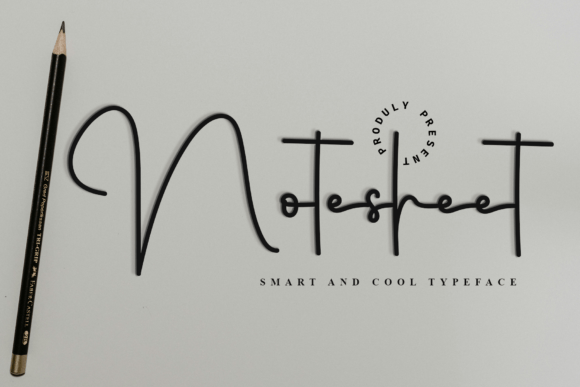
Introducing Notesheet Font: The Ultimate Holiday Typeface
The holiday season is upon us, and what better way to get into the spirit than with a festive and merry typeface? Look no further than Notesheet Font, a decorative and whimsical font that captures the essence of the holiday season. With its enchanting elements and nostalgic flair, Notesheet Font is perfect for adding a touch of magic to your designs.
What Makes Notesheet Font Special?
Notesheet Font is a unique and captivating typeface that boasts a range of decorative elements and whimsical features. Its festive and merry design makes it perfect for holiday-themed projects, greeting cards, gift tags, and more. With Notesheet Font, you can add a touch of enchantment to your words and make your designs shine.
- Decorative Elements: Notesheet Font features a range of decorative elements, including intricate swirls, holly leaves, and snowflakes, that add a touch of festive flair to your designs.
- Whimsical Flair: The font’s whimsical design makes it perfect for creating playful and eye-catching designs that capture the spirit of the holiday season.
10 Creative Ways to Use Notesheet Font
Notesheet Font is a versatile typeface that can be used in a variety of creative ways. Here are 10 ideas to get you started:
- Holiday Greeting Cards: Use Notesheet Font to create festive and personalized greeting cards for friends and family.
- Gift Tags: Add a touch of magic to your gift tags with Notesheet Font’s decorative elements and whimsical flair.
- Holiday-Themed Projects: Use Notesheet Font to create festive and eye-catching designs for holiday-themed projects, such as Christmas decorations, Halloween signs, and more.
- Social Media Graphics: Use Notesheet Font to create festive and engaging social media graphics that capture the spirit of the holiday season.
- Blog Posts: Add a touch of holiday cheer to your blog posts with Notesheet Font’s whimsical design.
- Invitations: Use Notesheet Font to create festive and personalized invitations for holiday parties and events.
- Signs and Banners: Use Notesheet Font to create eye-catching signs and banners for holiday events and promotions.
- Product Labels: Add a touch of holiday magic to your product labels with Notesheet Font’s decorative elements and whimsical flair.
- Menu Boards: Use Notesheet Font to create festive and eye-catching menu boards for holiday-themed restaurants and cafes.
- Packaging: Use Notesheet Font to add a touch of holiday cheer to your product packaging.
Tips for Using Notesheet Font
Here are some tips for getting the most out of Notesheet Font:
- Experiment with Sizes: Notesheet Font looks great in a variety of sizes, from small and delicate to large and bold.
- Play with Colors: Notesheet Font can be used with a range of colors, from traditional holiday colors like red and green to more modern and bold color schemes.
- Mix and Match: Don’t be afraid to mix and match Notesheet Font with other fonts and design elements to create a unique and eye-catching design.
Notesheet Font Details
Here are some key details about Notesheet Font:
- Font Type: Notesheet Font is a decorative, script font.
- Glyphs and Ligatures: Notesheet Font features a range of glyphs and ligatures, including decorative elements and whimsical features.